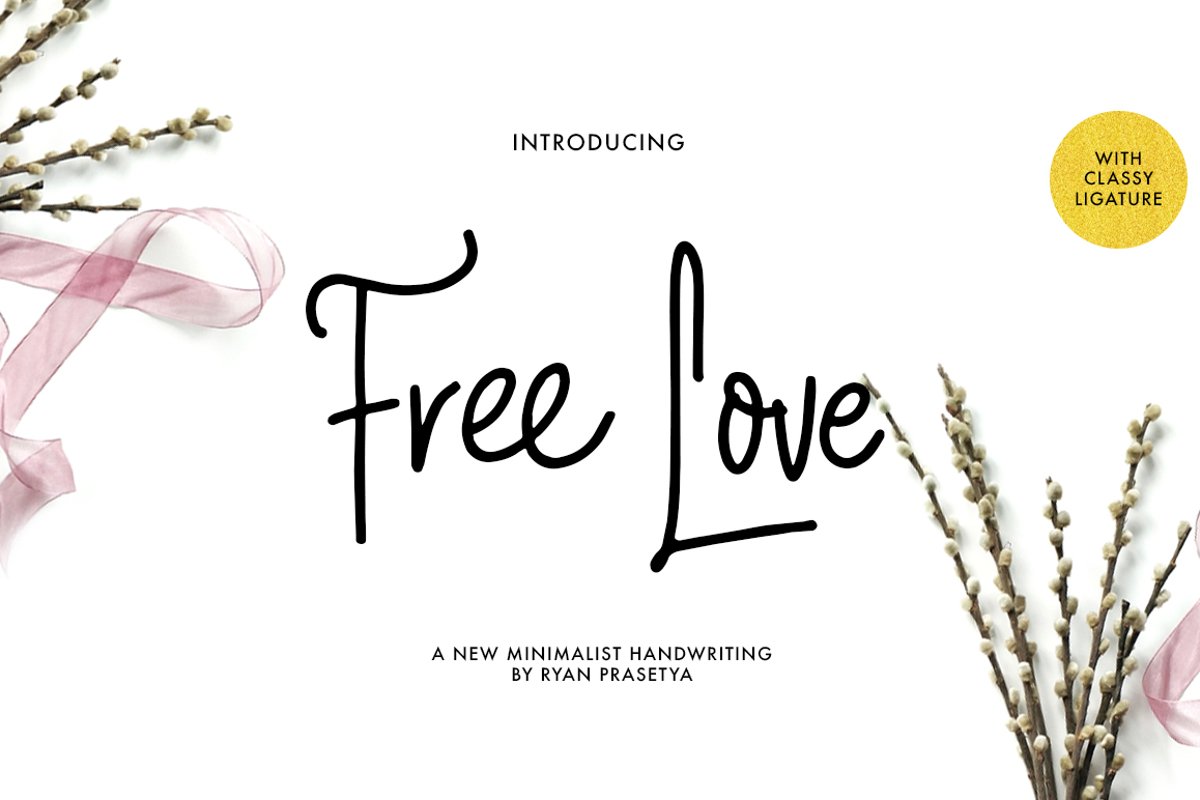
Free Love Script
Free Love
Hello everyone, let me introduce Free Love Script a new brand handwriting
This font crafted carefully from a scratch, and you'll never be so
bored using this font. It's not a typical and usual handwritten, yor
design will look more classy using this font.
Font Feature
• Alternate Character : like the other great font we just added some
alternate character and still adding some alternate for the next update.
• Multilanguange Support and like our other font this font covered